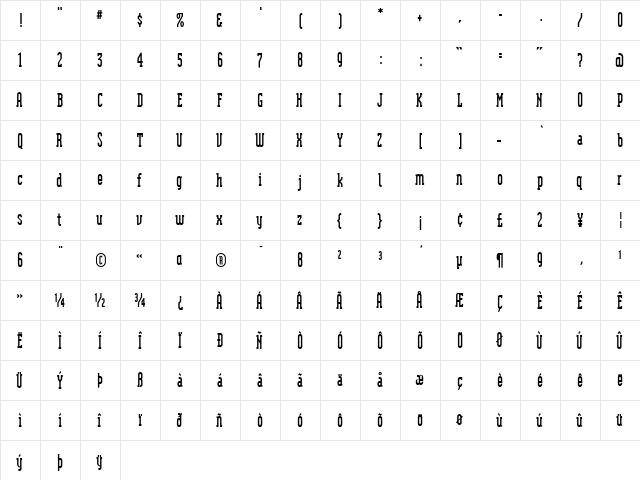
ModularSerifBold Medium
Design Context for ModularSerifBold Typeface
ModularSerifBold brings classic typographic sensibility to the table — its serifs and measured letterforms reflect centuries of print heritage. Its bold stroke weight gives it real presence on the page.
Pro Tip: Set ModularSerifBold with slightly loose tracking in headlines to let each letterform's detail read clearly at display sizes.